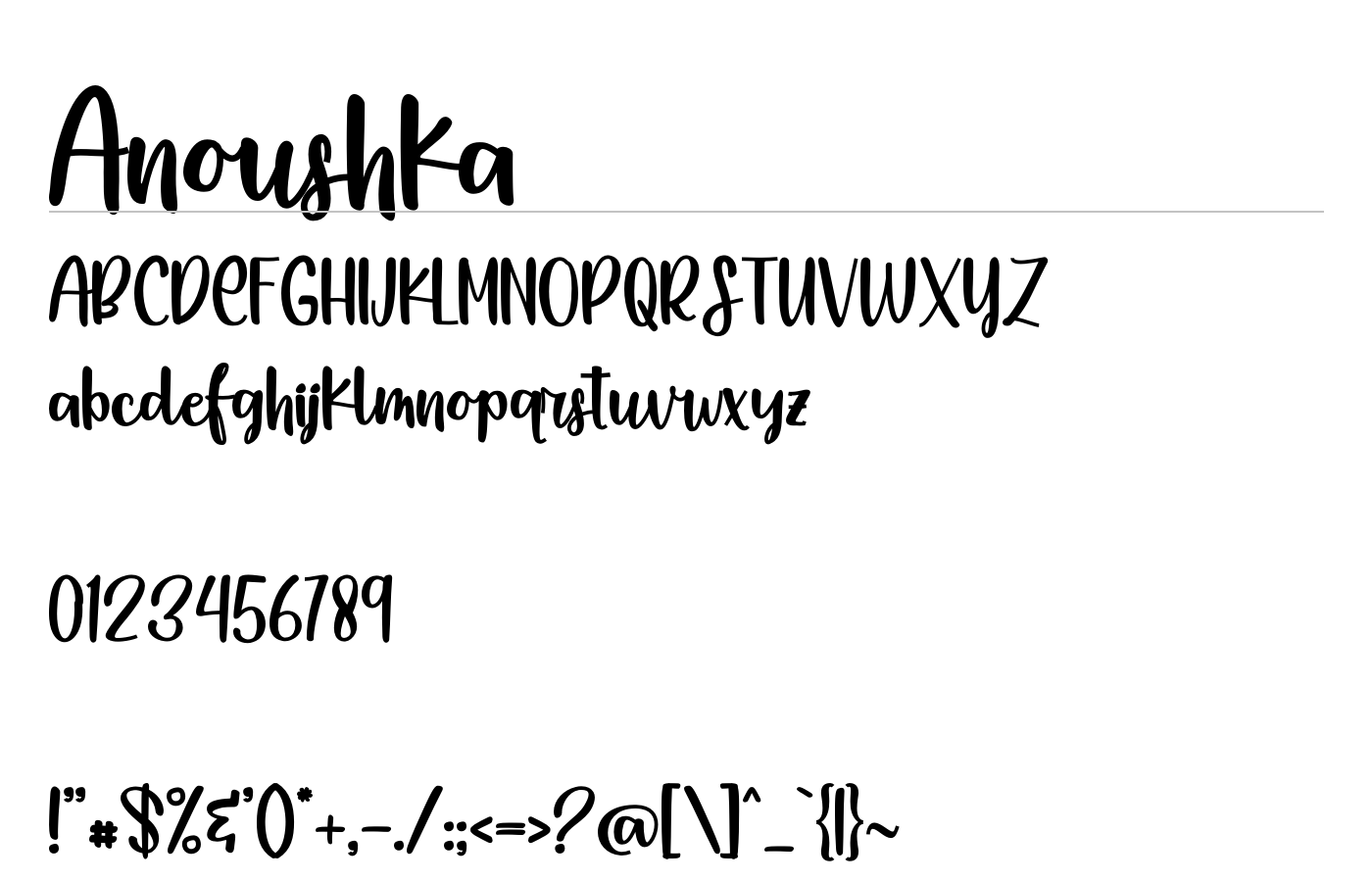
Anoushka is a playful and casual handwritten font with a lively and friendly character. Its upright, slightly condensed letterforms feature smooth, rounded strokes with consistent weight, giving it an approachable feel ideal for informal, creative projects. This font works wonderfully for branding, invitations, and social media where a warm, personal touch is desired.
Anoushka Font
About Anoushka Font
| Font family | Anoushka Font |
| Designer | Tikara Sari |